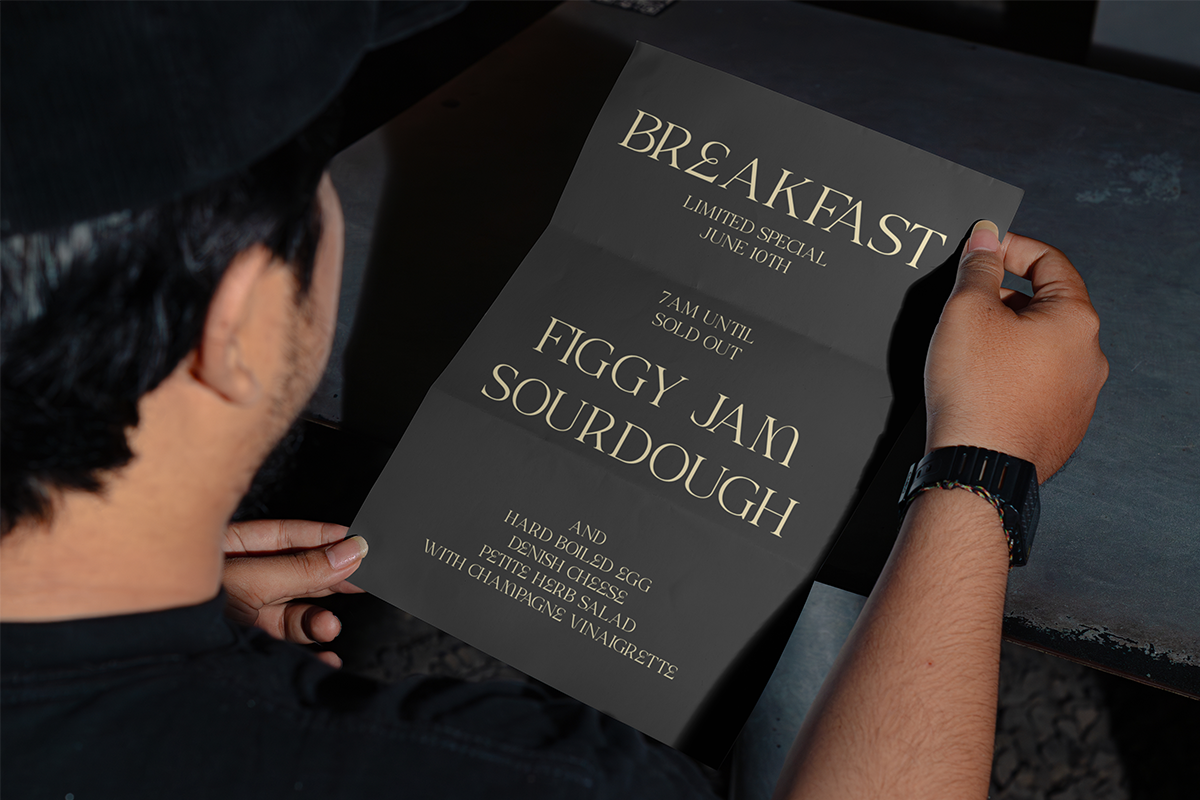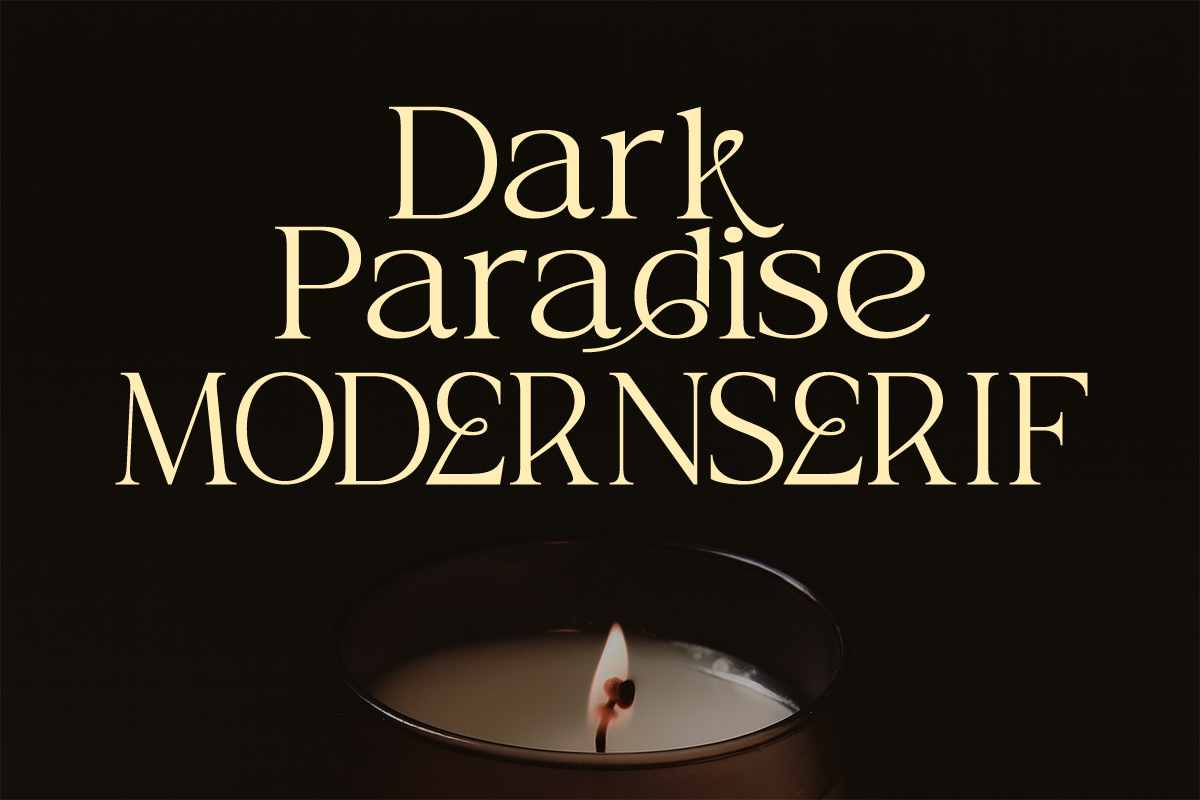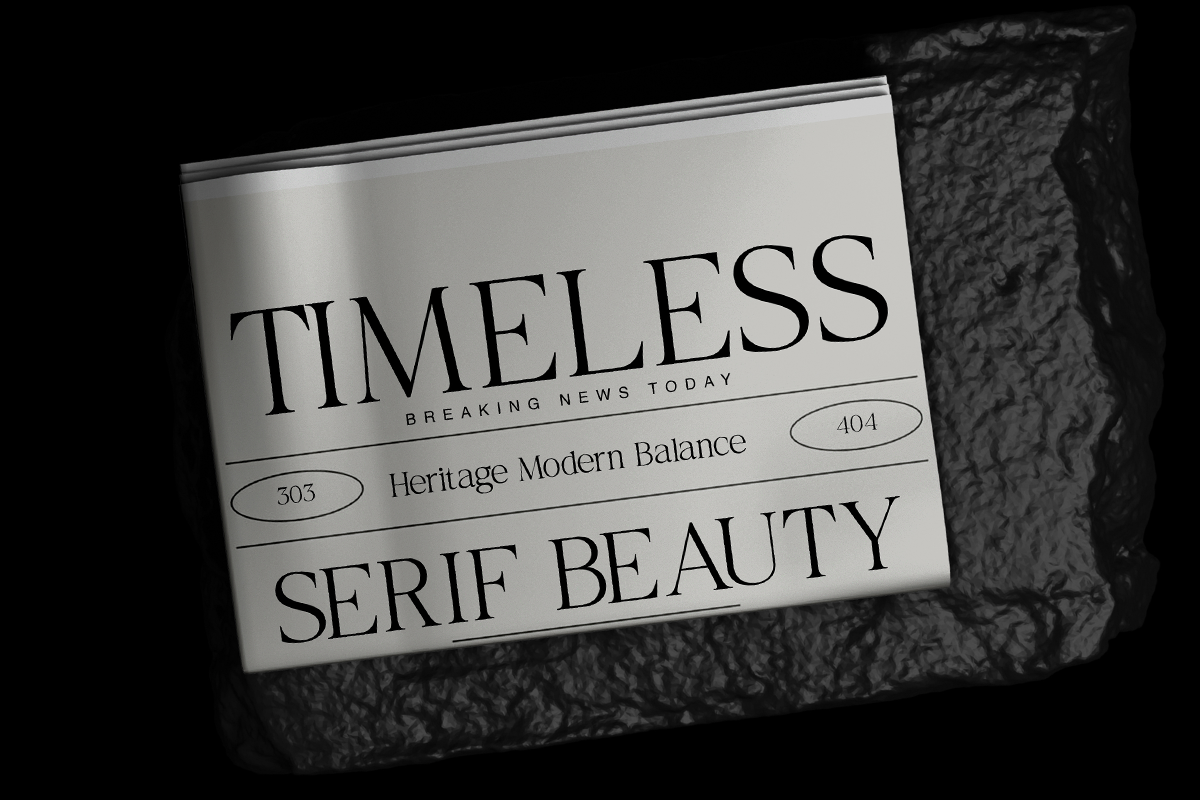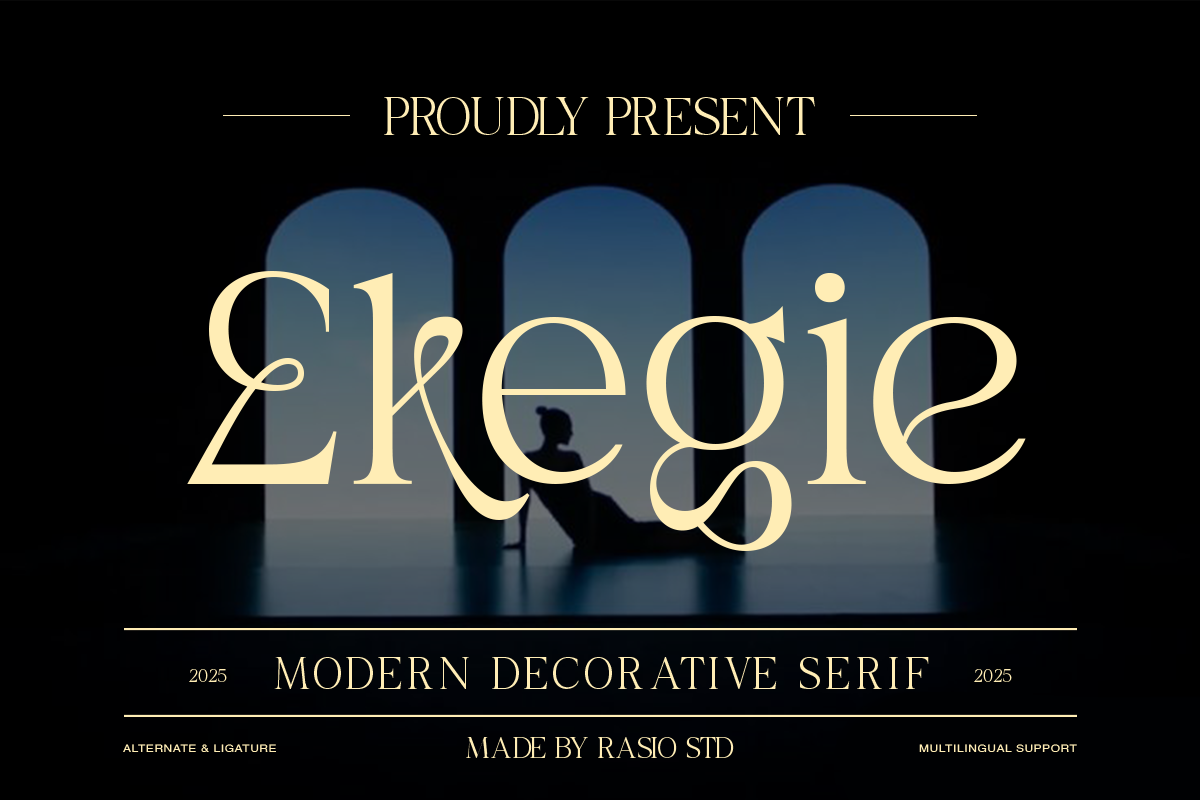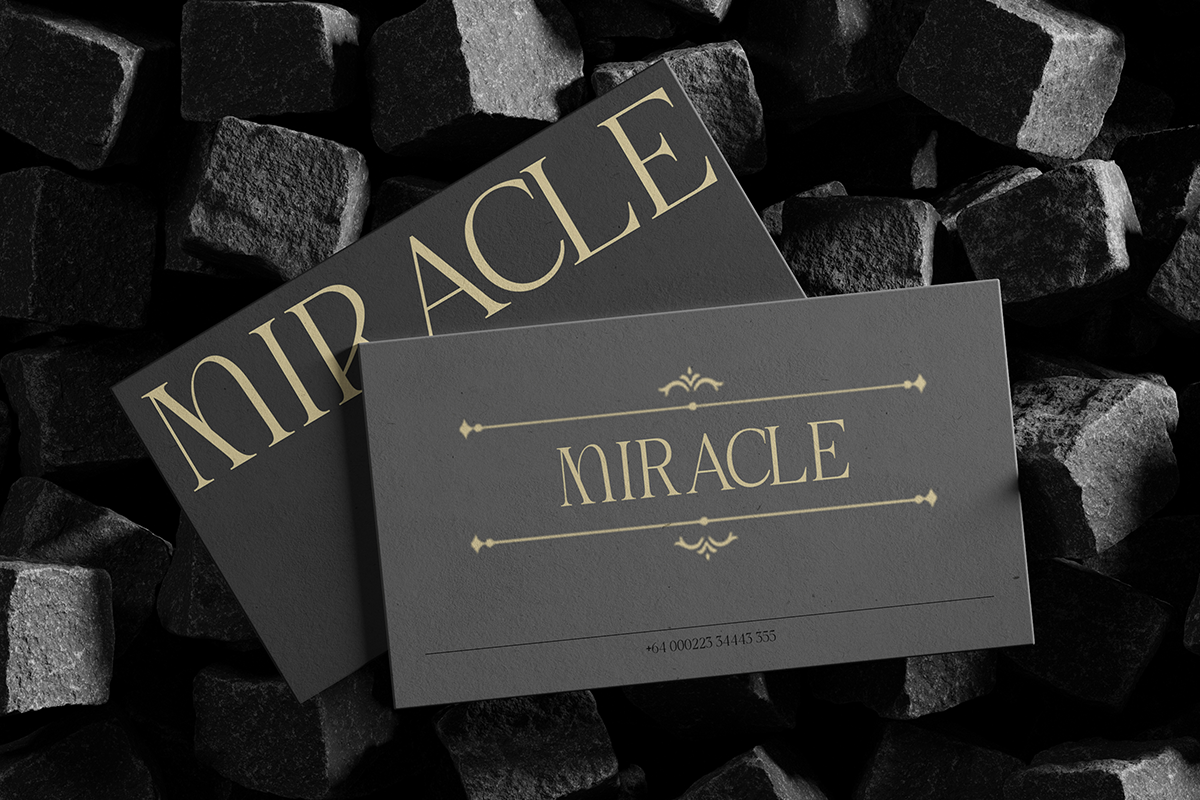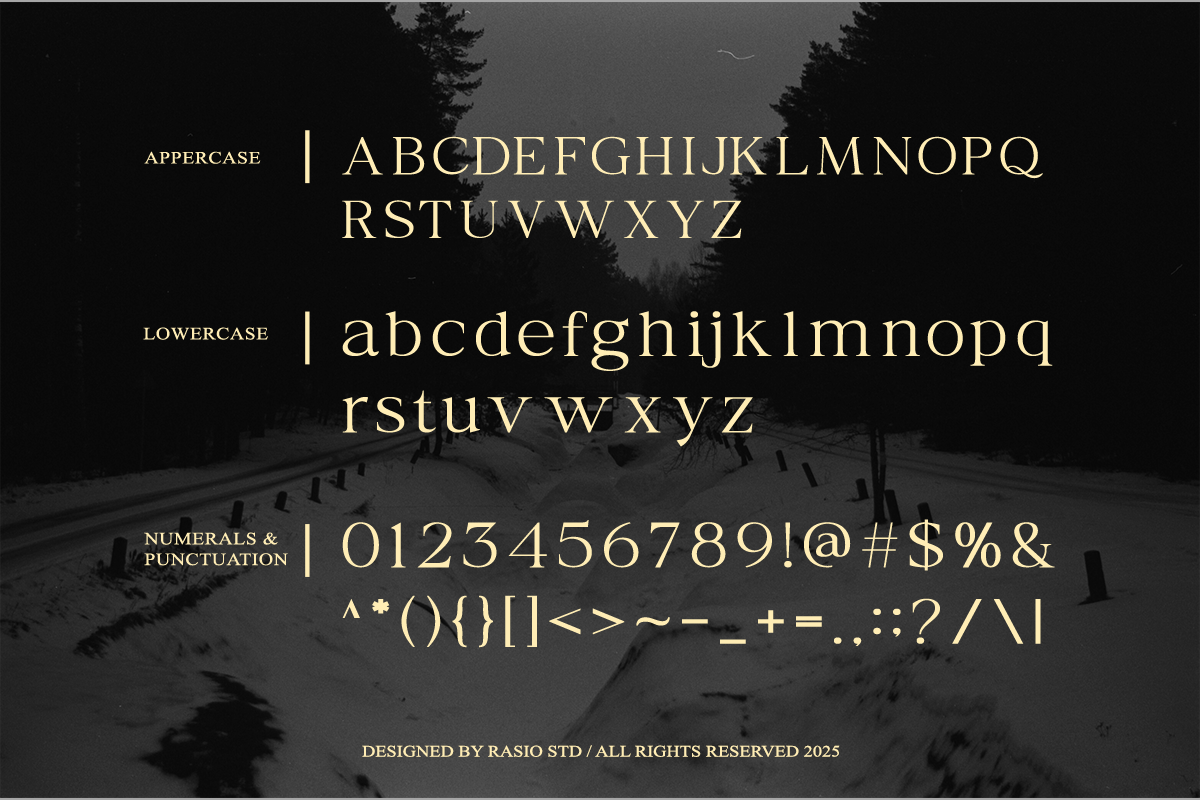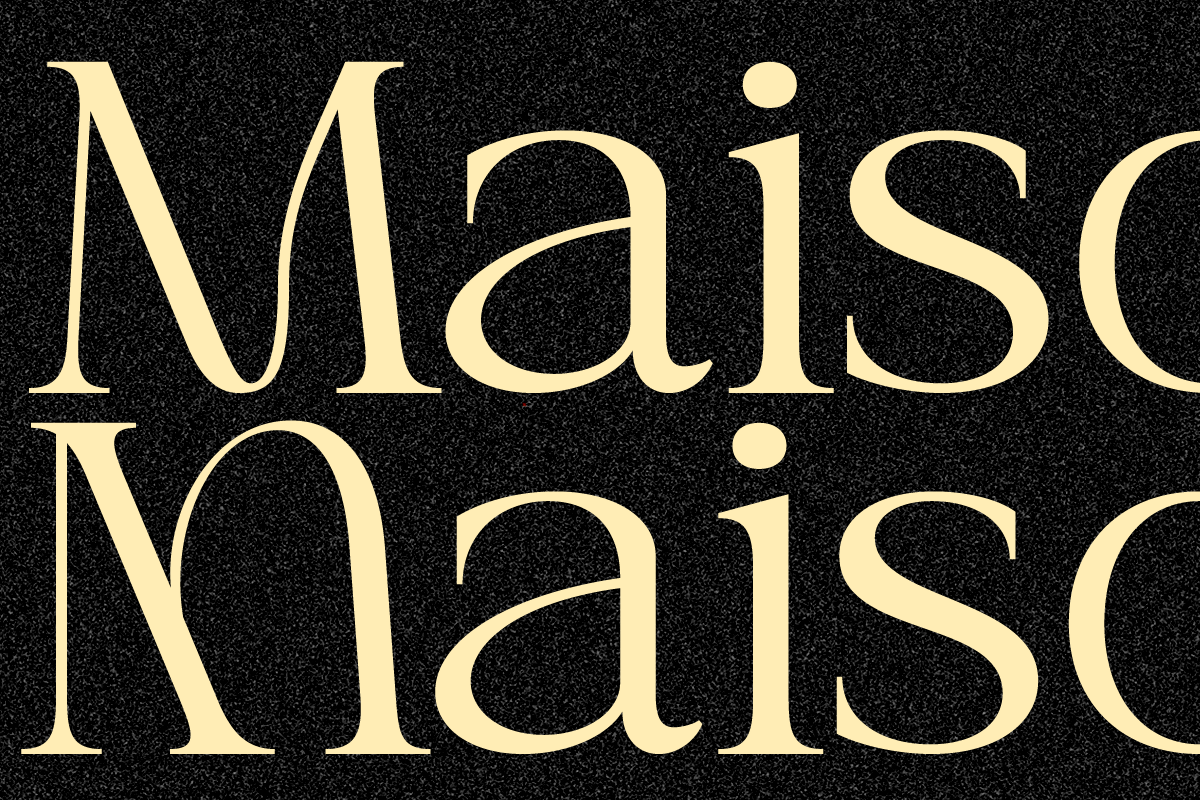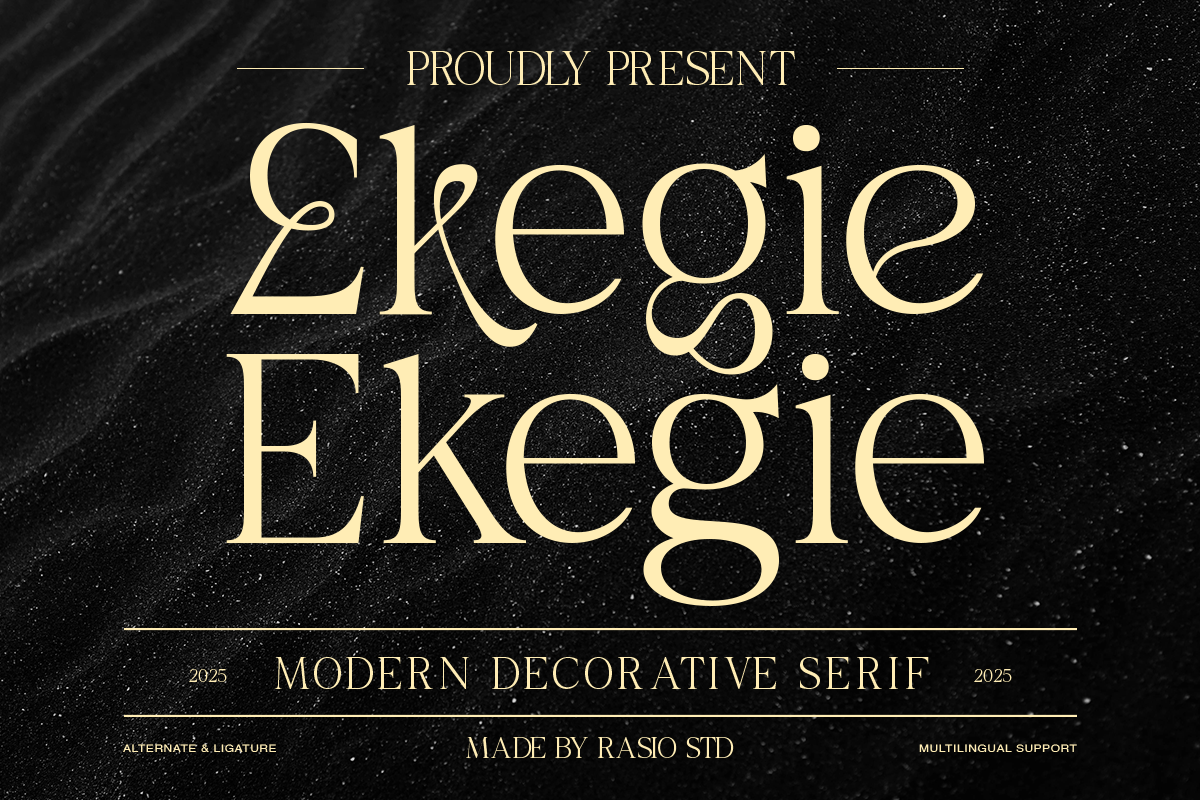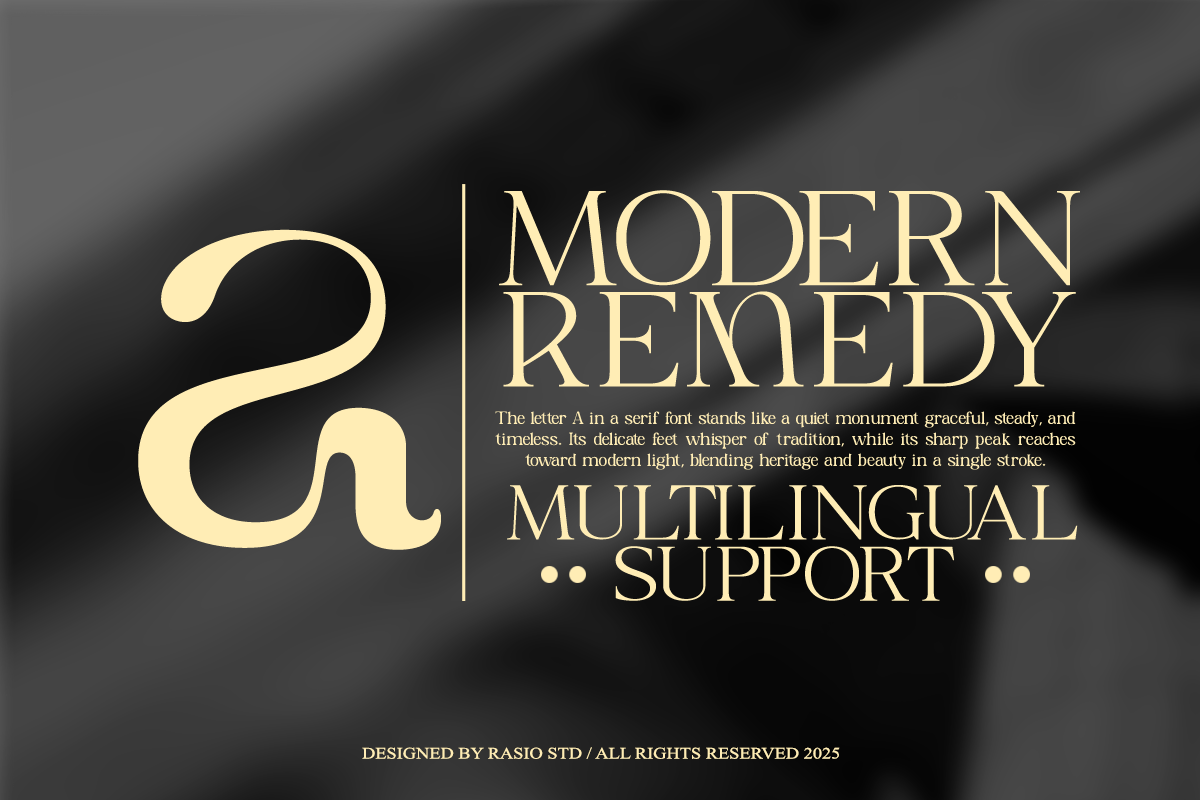
Ekegie Modern Decorative Serif Font
Ekegie is a modern decorative serif font designed with refined elegance, artistic ligatures, and unique alternate characters. Each letterform blends classical beauty with contemporary sophistication, making it an ideal choice for premium design needs. The typeface includes a complete set of uppercase and lowercase letters, punctuation, numerals, and multilingual support, offering full flexibility for global branding and creative projects.
Relevance and Uses Cases Perfect for branding, editorial, logo design, packaging, magazine layout, wedding invitation, fashion branding, luxury product, high-end marketing, typography poster, personal project, business identity, modern display.
- Modern decorative serif design with refined high-contrast strokes
- Elegant curved terminals and distinctive serif detailing
- Graceful character shapes that enhance luxury editorial aesthetics
- Balanced proportions for strong headline and display presence
- Carefully spaced letterforms for clear readability and refined typography
- Luxury brand identity systems and premium logo design
- Editorial magazines, fashion layouts, and modern publishing
- Beauty, perfume, and cosmetic product packaging design
- Wedding invitations, elegant stationery, and event branding
- Social media templates and marketing visuals with refined sophistication